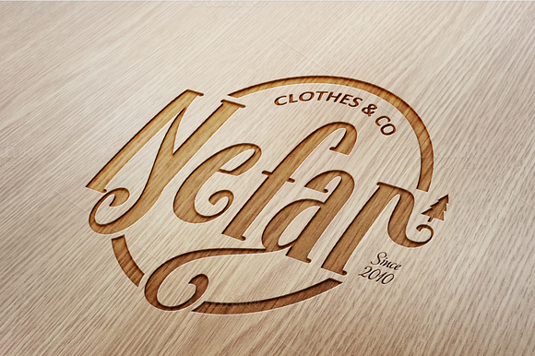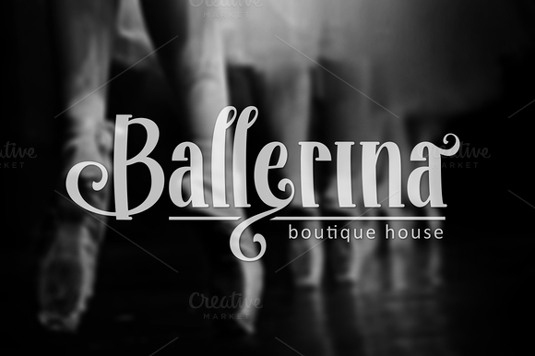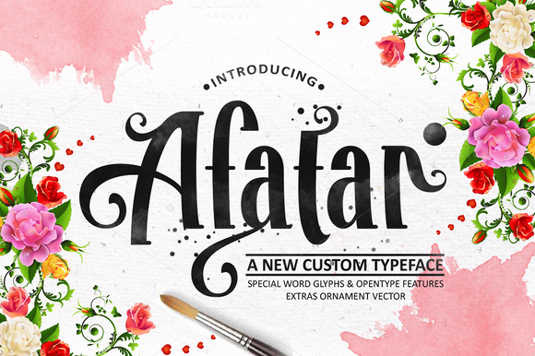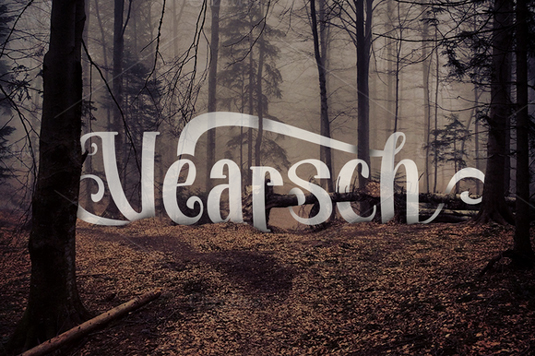
Font of the day: Afatar
Every day we showcase the best fonts on the web. Today it's Afatar from COB Studios, which is free to download.
Afatar from COB Studios
Today's typeface of choice is Afatar from COB Studios. A new elegant, custom design, Afatar is great for logos, stationery and much more.